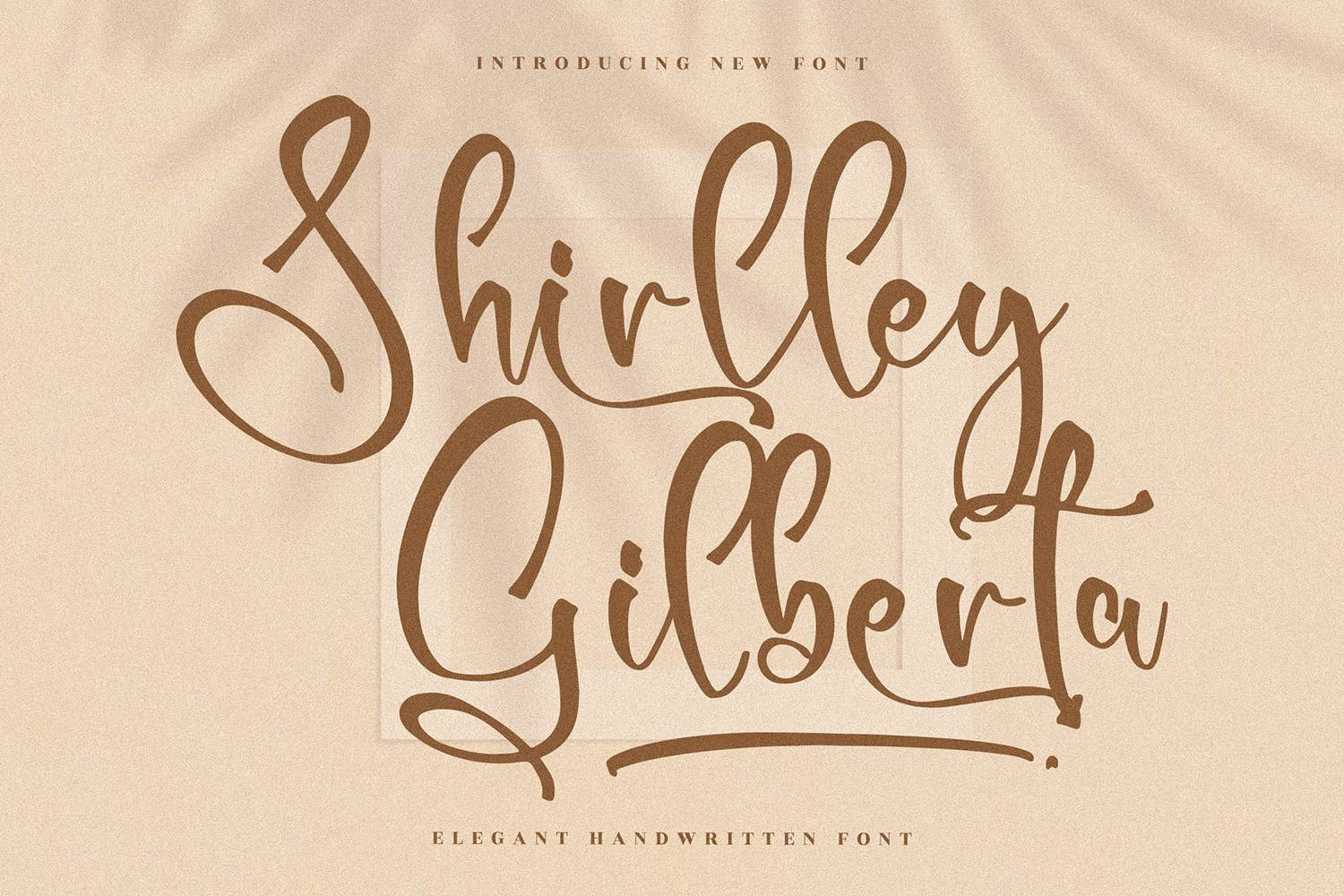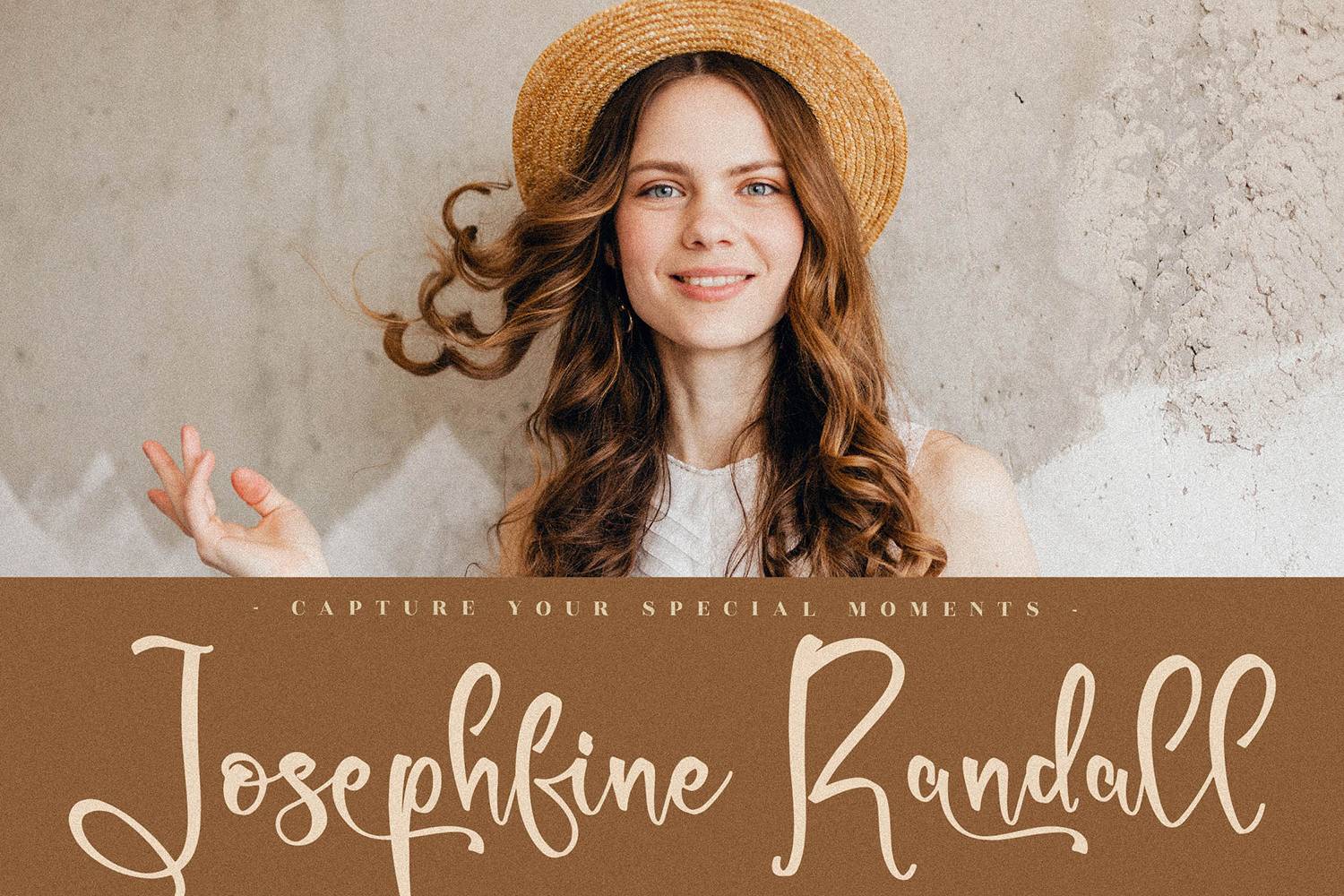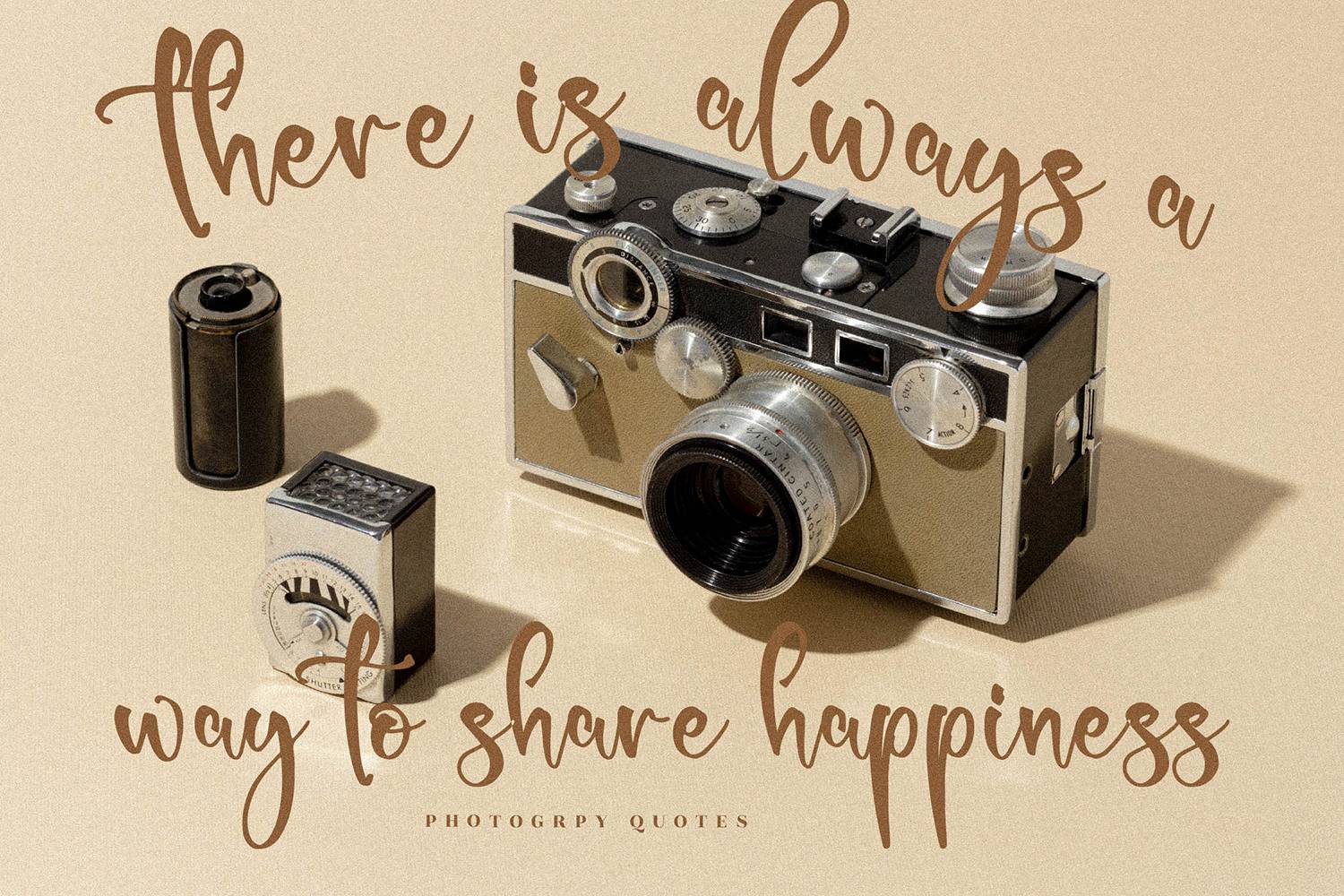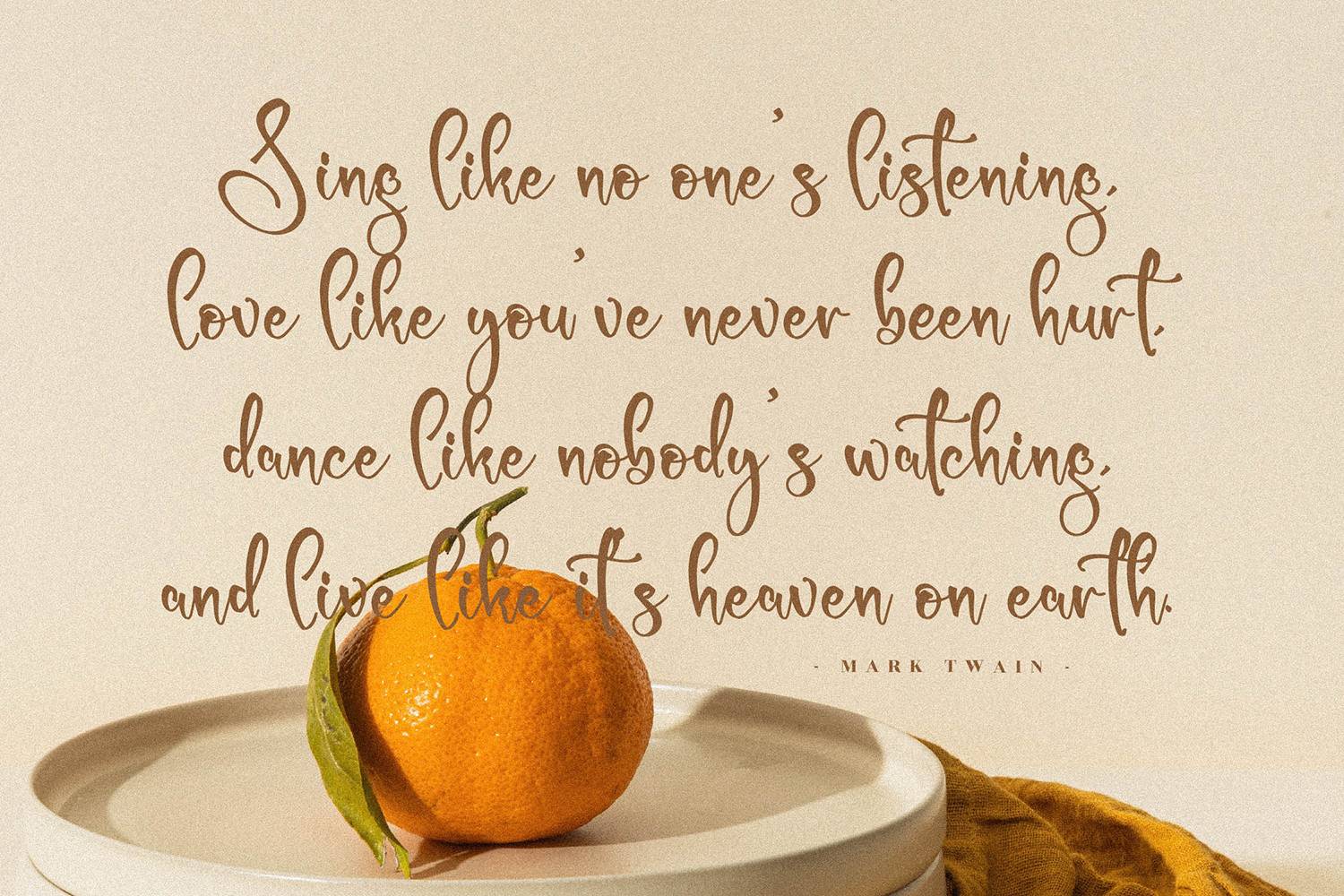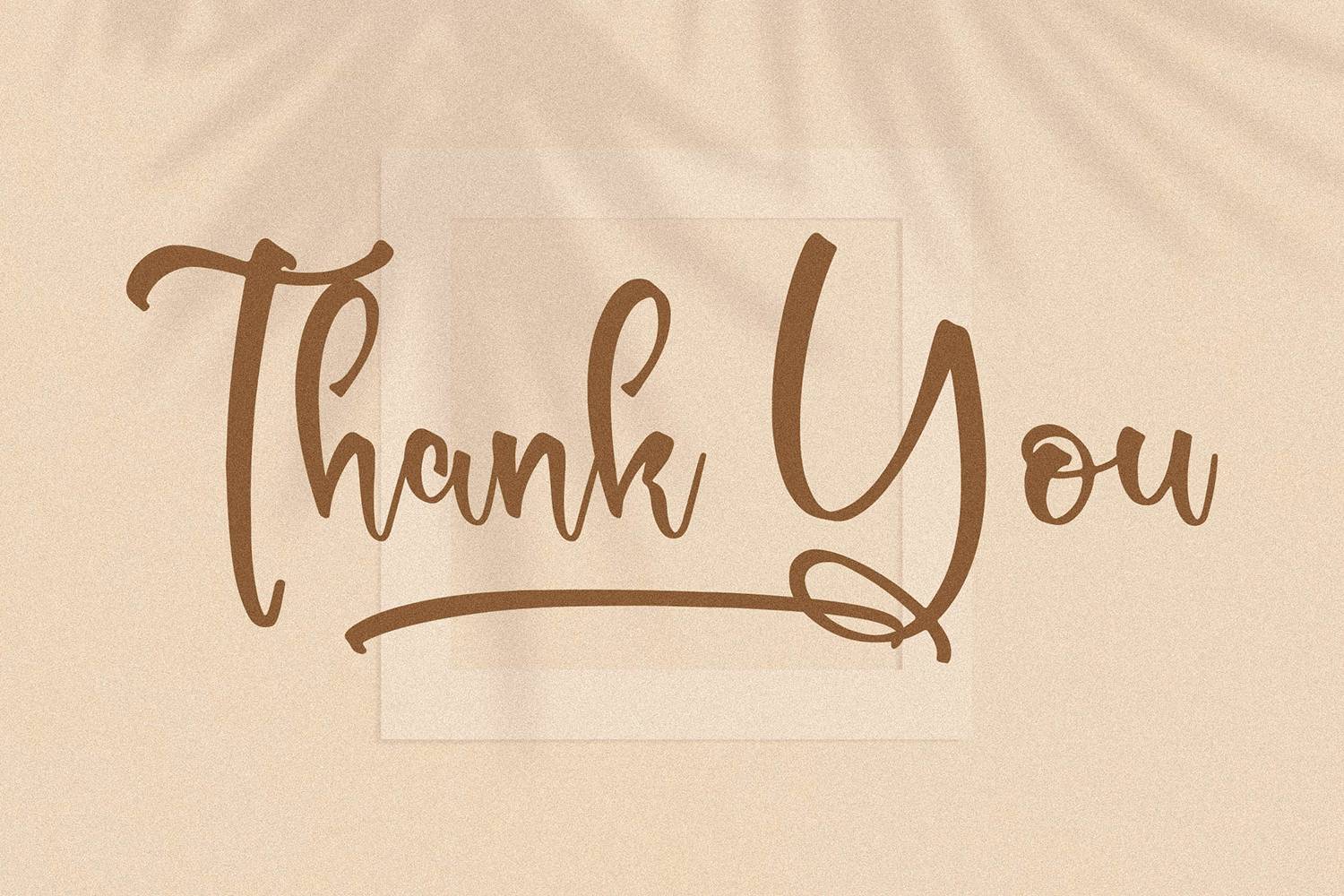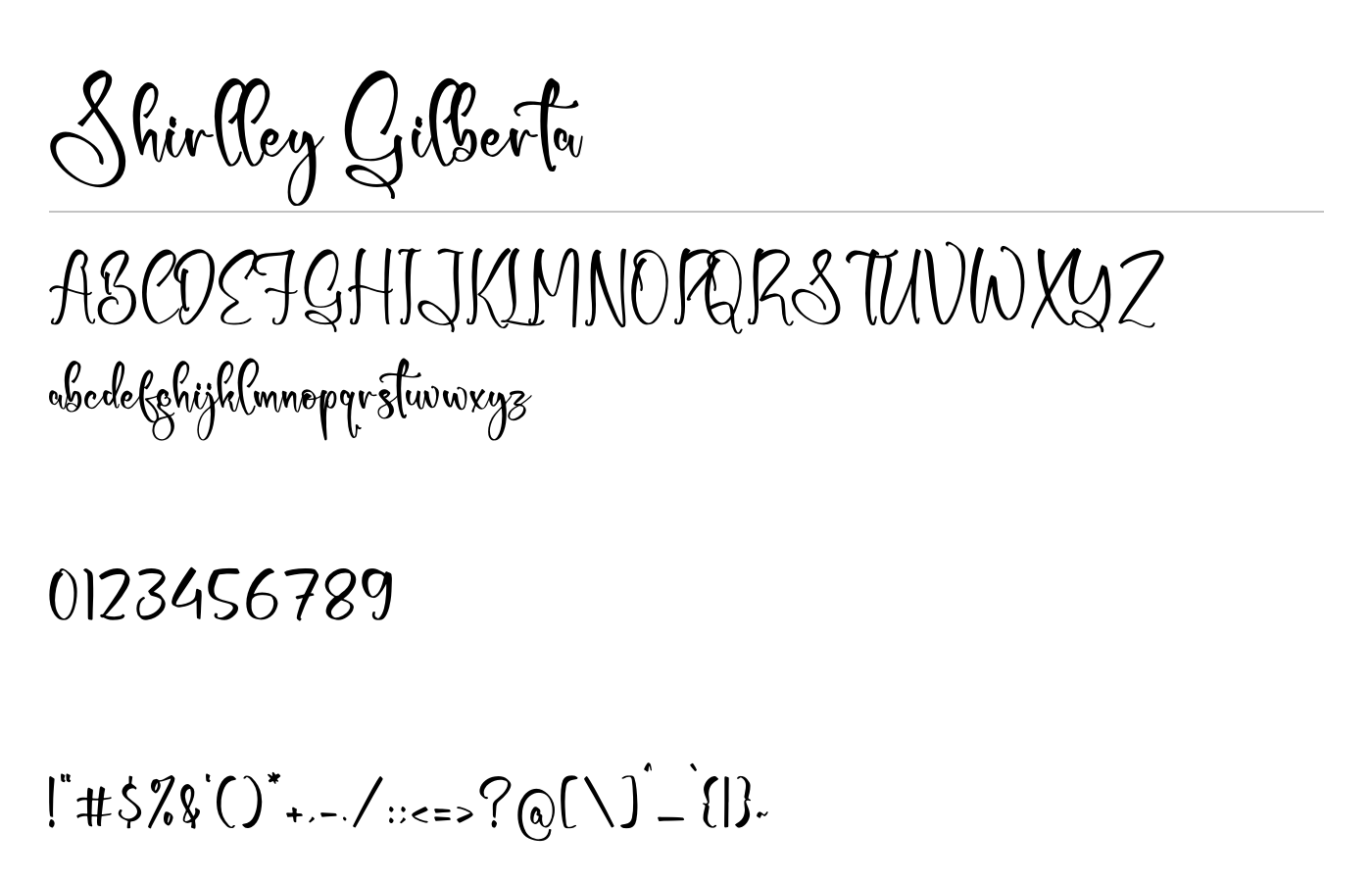
Shirlley Gilberta is a delicate script font with a charming, handwritten style featuring elegant swashes and playful curls. Its light weight and medium contrast strokes give it a graceful, airy feel, making it perfect for creative branding, invitations, and feminine or artistic projects. This font shines in uses where a personal, stylish touch is desired, such as logos, greeting cards, and fashion packaging.
Shirlley Gilberta Font